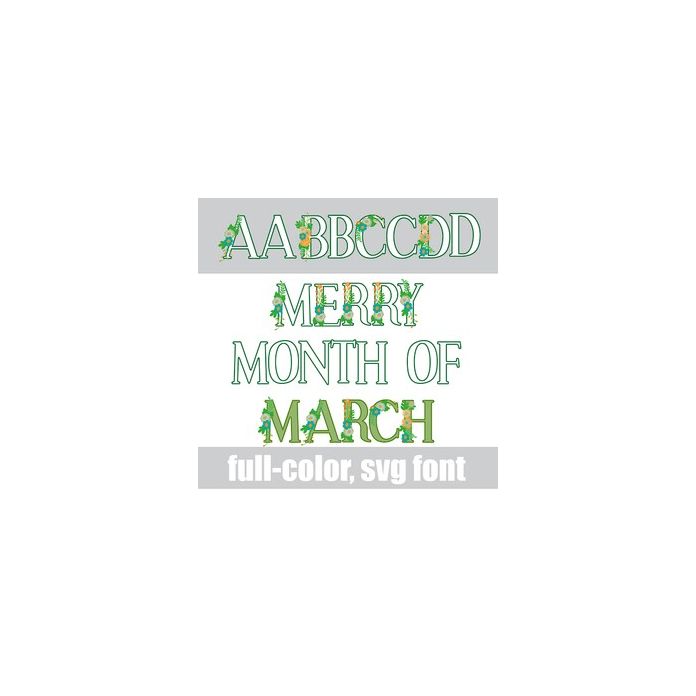
This full-color font features green and white lettering and pretty green flowers. There is an alt case w/ additional colors you can access through your system or Silhouette's glyph map.